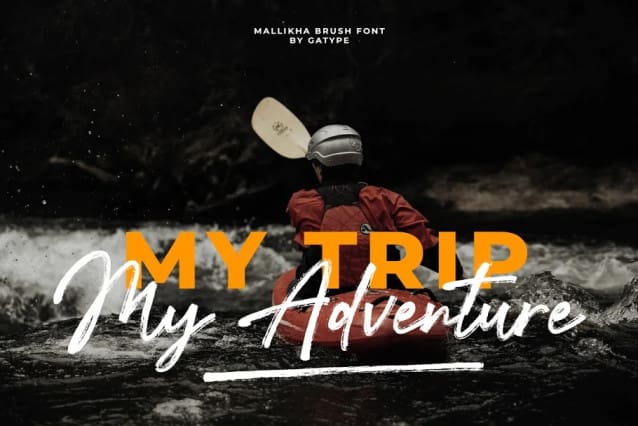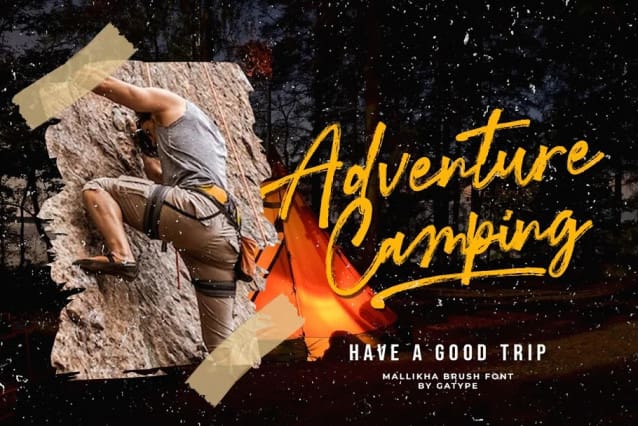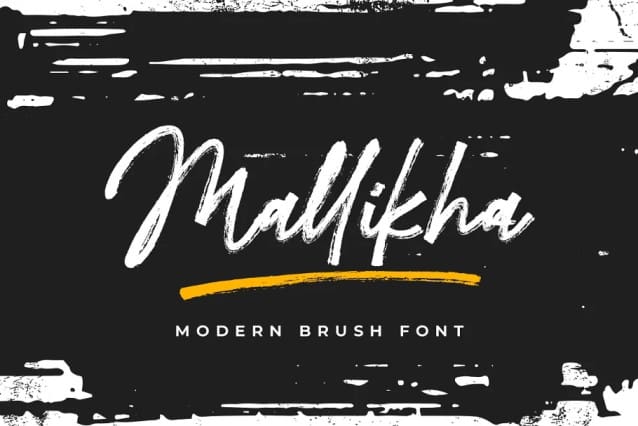
Mallikha Brush Font
Mallikha Brush Font, is a luxurious, handbrushed typeface with an authentic and casual feel. It would be perfect to use for Branding, Logo Design, Lettering, Logo Type, Clothing, Posters, magazines, packaging, posters, shopping bags, t-shirts, book covers, photography, special events and other design projects.